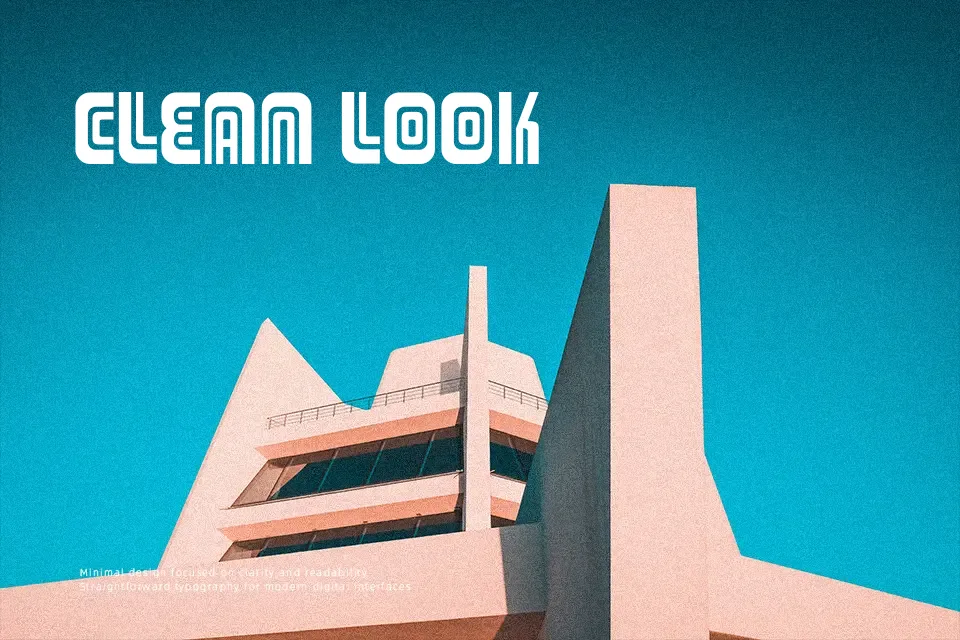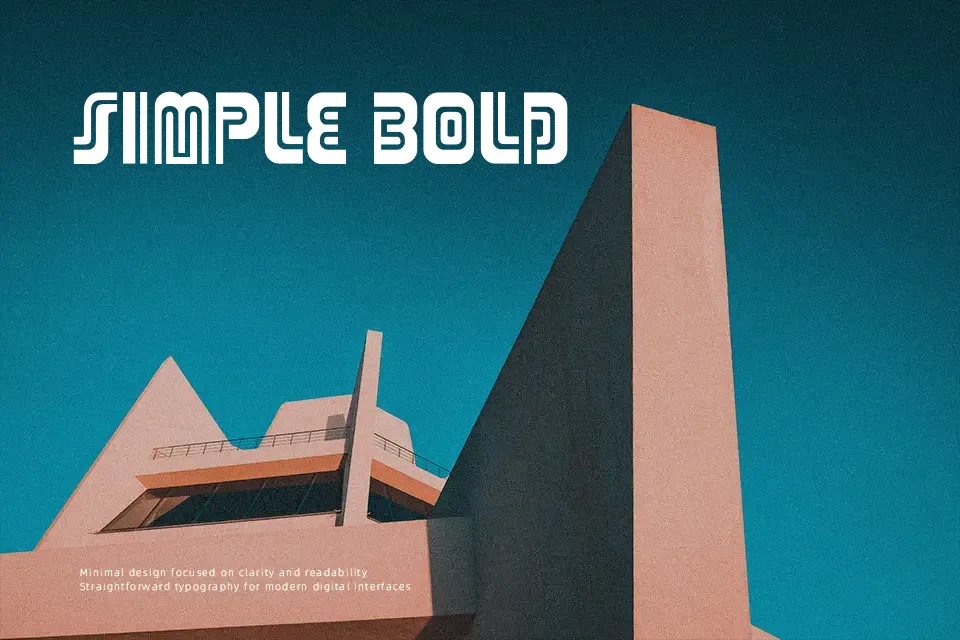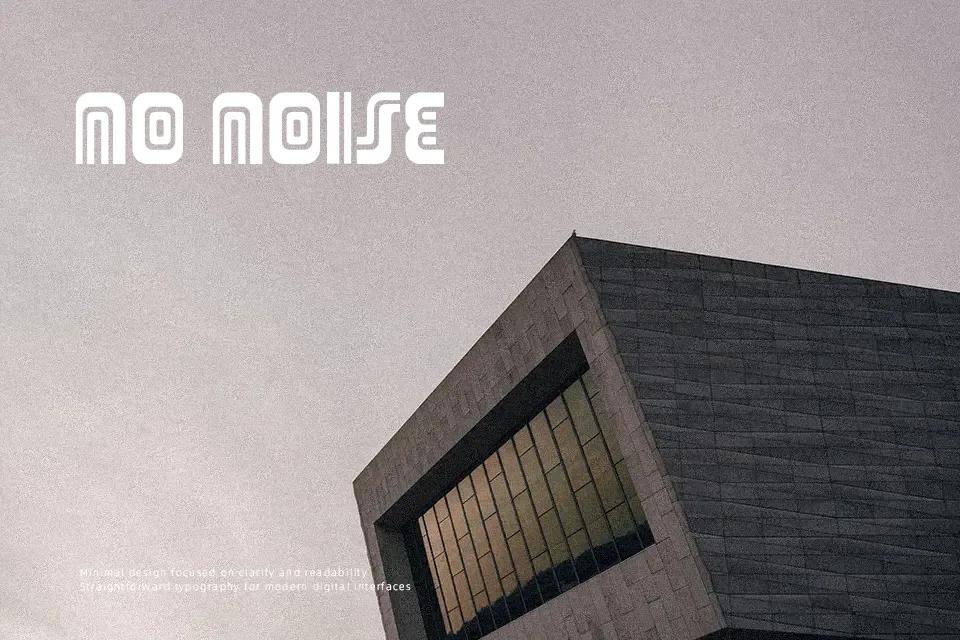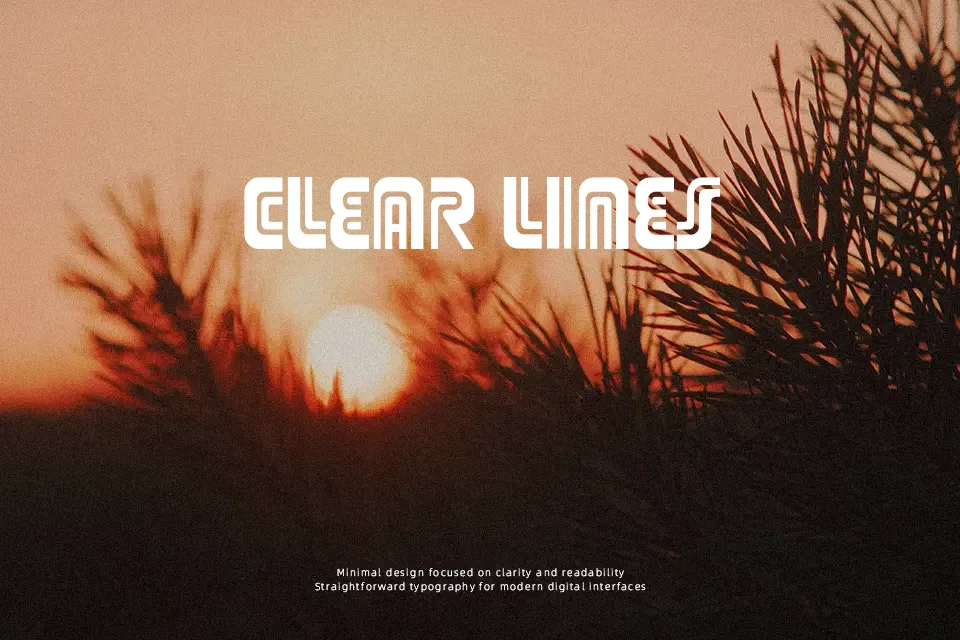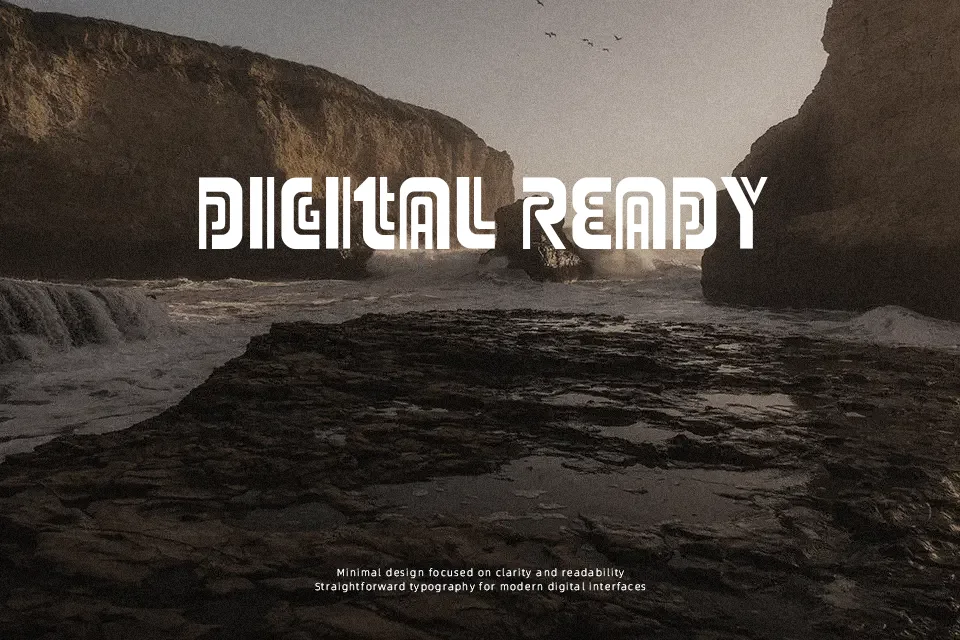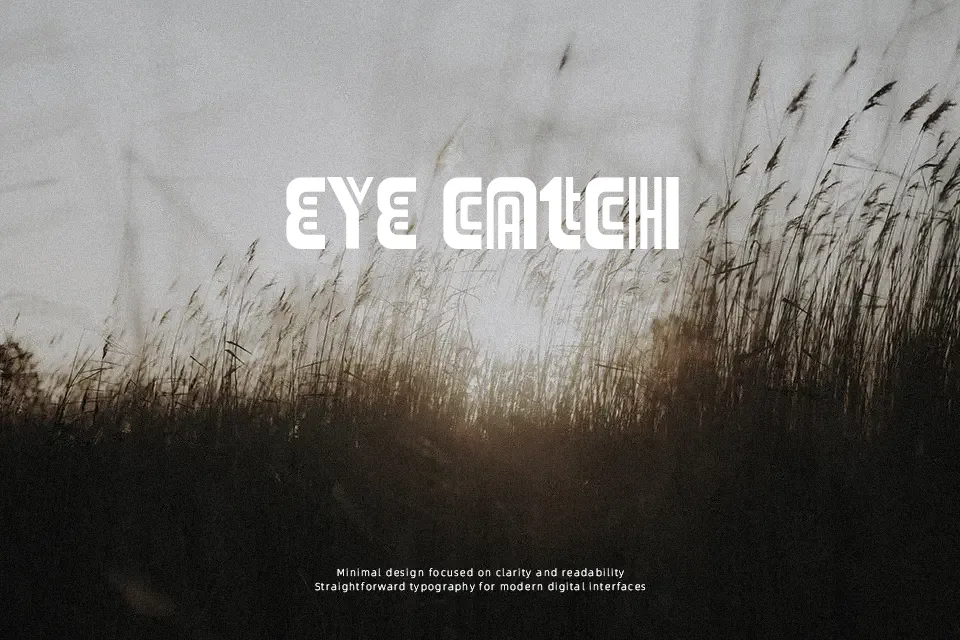
Adriator Font
Designed by Typodermic Fonts
Adriator’s most distinctive trait is its unusual double-stripe construction — each letterform carries parallel internal lines that create a semi-futuristic Art Deco texture unlike standard display fonts. The strokes feel structured yet eccentric, leaning toward decorative rather than neutral. It draws from the visual language of vintage industrial signage, making it a reasonable pick for themed poster headlines, music event graphics, or retro brand identities that need an off-beat edge. That said, its ornamental striping makes it unsuitable for body text or any context where readability at small sizes matters. It also resists pairing easily — drop it into a clean minimal layout and it will clash. Works best when the design fully commits to the retro-quirky direction rather than using it as a subtle accent.
Best For:- Retro-themed event poster headlines
– Music festival or concert branding
– Art Deco-inspired packaging titles
– Vintage game or film title cards
Not Ideal For:- Body text or long-form reading
– Corporate or professional documents
– Small-size UI labels or captions
– Minimal or clean modern layouts
Perfect for branding, film, and headline, with a dynamic and decorative style.